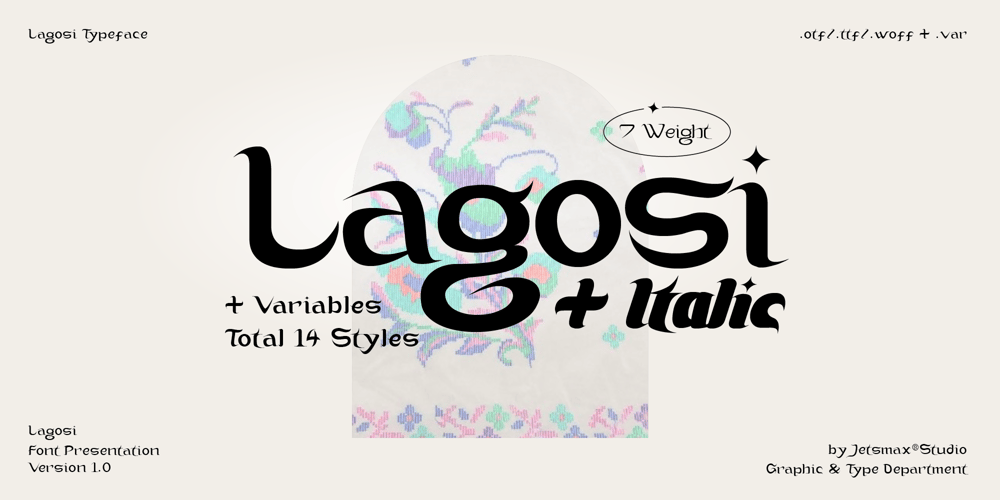
Lagosi Font Family was designed by Khairil Anwar and published by Jetsmax Studio. Lagosi contains 15 styles and family package options. Lagosi is a pointed serif typeface inspired by the features on the lagosi fabric found in wajo. They range in weight from light cuts that are bold and elegant to black and strong. Packed with more sets of Italic gestures and other custom bindings, this typeface is perfect for adding sparkle and elegance to your designs.What’s Included: Ligature & Unique Works on PC & Mac Simple installations Accessible in the Adobe Illustrator, Adobe Photoshop, Adobe InDesign, even work on Microsoft Word. PUA Encoded Characters – Fully accessible without additional design software. Fonts include multilingual support for; Afrikaans, Albanian, Catalan, Danish, Dutch, English, French, Hungarian, Icelandic, Italian, Spanish, Portuguese, German, Swedish, Norwegian, Polish, Indonesian, Turkish, Zulu Lagosi is very suitable for branding projects and many designs purpose like advertising, posters, invitations, branding, logos, magazines, merchandise, presentations, etc.Get Free one weight from the Lagosi family for Free! Apply to your amazing projects and enlarge your creative tools by adding the complete Lagosi family to your font library.